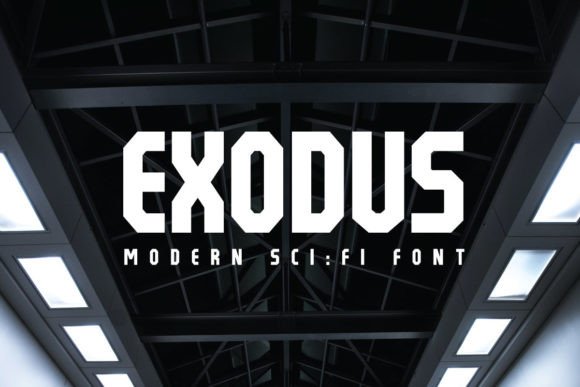
Step into a realm of digital elegance with Exodus Font, the ultimate display font crafted by FONTNDA, where innovation meets aesthetic. Its meticulous design, inspired by the essence of futurism, exudes precision and technological prowess, making it an ideal choice for those seeking a modern and captivating font.
Exodus Font is a symphony of sharp, geometric forms and clean lines, a testament to the harmony between aesthetics and functionality. Its range of weights and styles allows for limitless creative possibilities, seamlessly adapting to any digital or print medium. Whether gracing the screens of digital displays or adorning the pages of print media, Exodus Font commands attention with its distinctive presence.
This font is not just a mere collection of glyphs; it's a gateway to the future of typography, a tool that empowers you to craft designs that transcend time. With Exodus Font, your creations will rise above the mundane and embrace the realm of the extraordinary. It's the perfect font for those who dare to be different, for those who seek to leave an indelible mark on the world of design.
Its sleek and modern appearance makes Exodus Font the ideal choice for a wide range of applications. Design captivating logos that embody the spirit of innovation, craft brochures that exude professionalism, or create social media graphics that demand attention. With Exodus Font, your message will be amplified, reaching new heights of clarity and impact.
Embark on a typographic journey with Exodus Font, and discover the boundless possibilities that await you. Let its futuristic charm ignite your creativity, allowing you to craft designs that resonate with audiences and leave a lasting impression. Embrace the future of design, and let Exodus Font guide you towards typographic excellence.